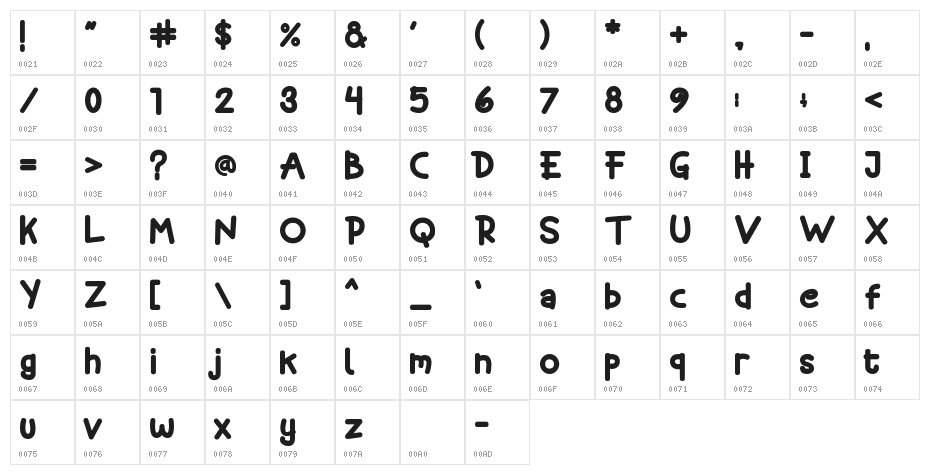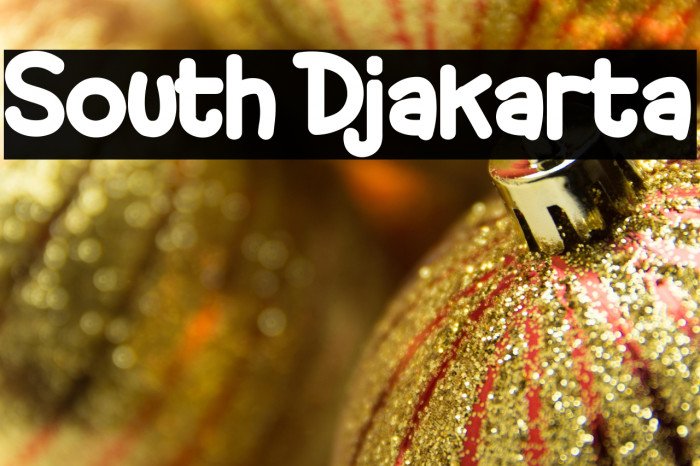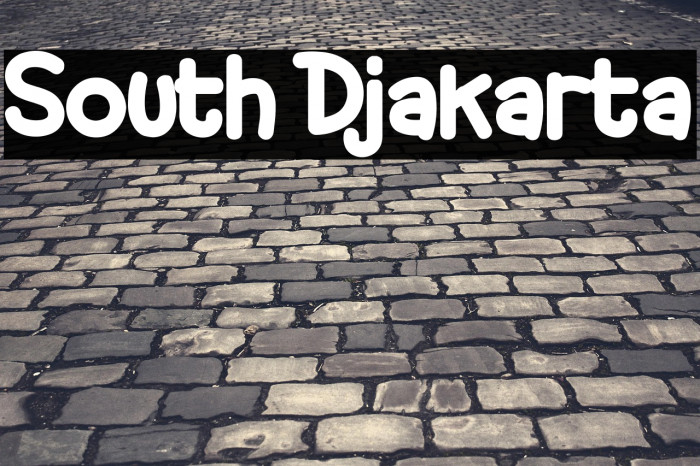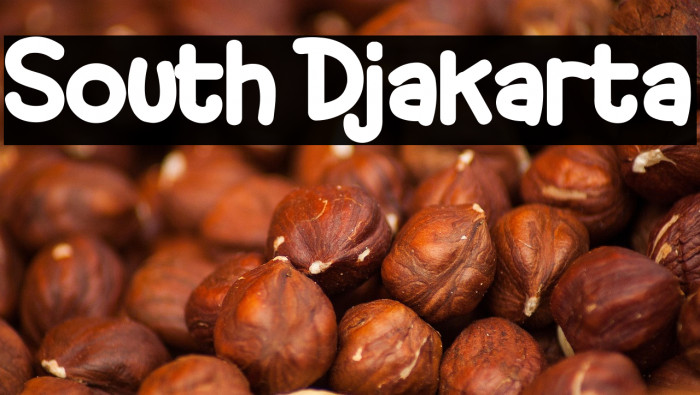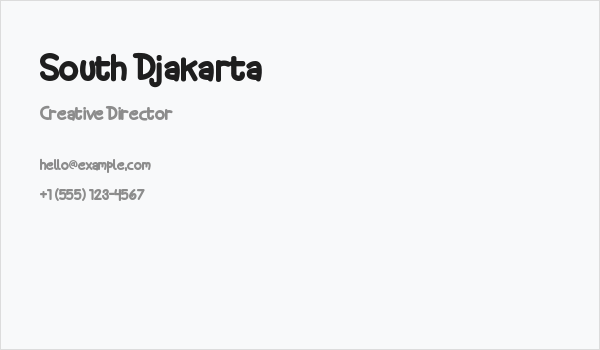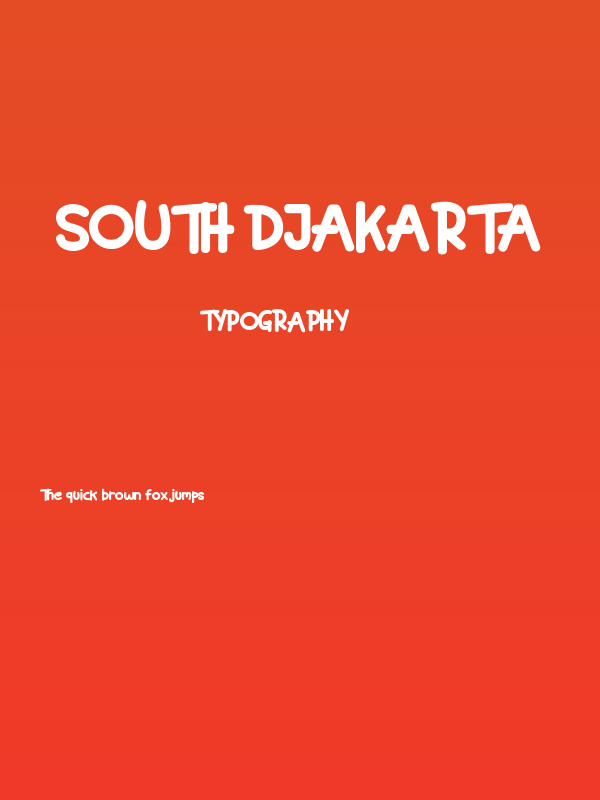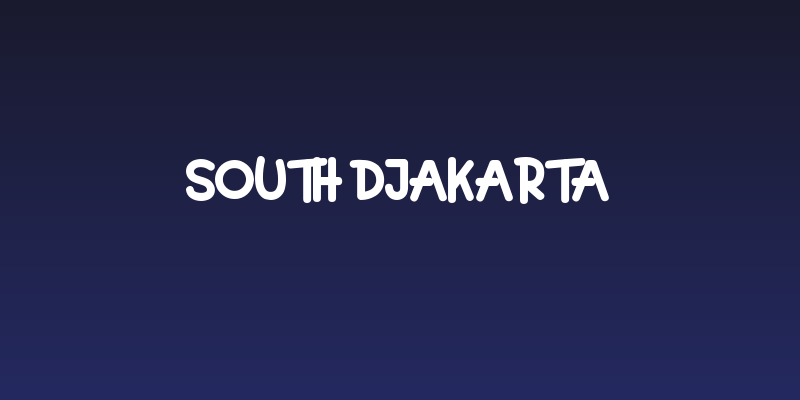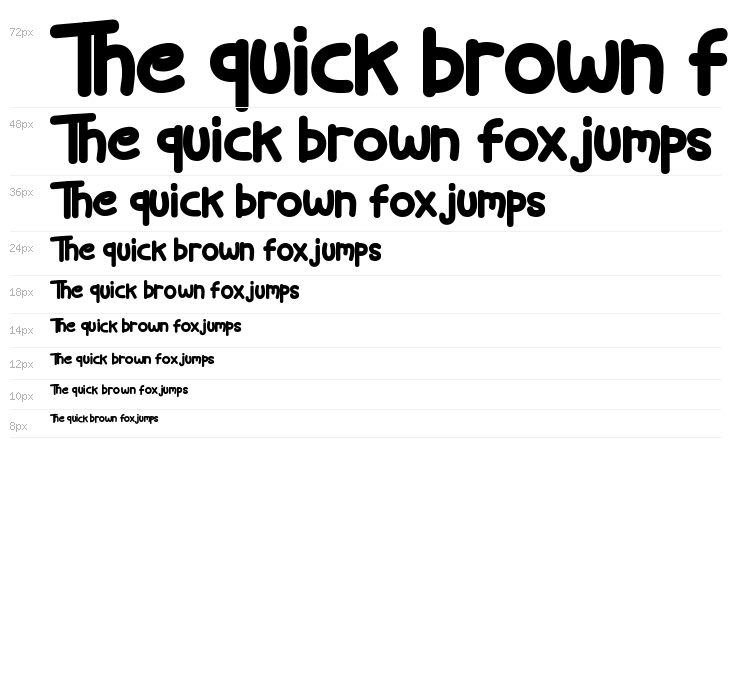
South Djakarta Font
South Djakarta Description
This playful and bold font features a rounded, hand-drawn style that exudes a casual and friendly vibe. The characters are thick and slightly irregular, giving them a whimsical and approachable appearance. The uppercase and lowercase letters maintain a consistent weight, while the numbers and special characters follow the same playful design. The font's overall look is informal and fun, making it ideal for projects that require a touch of personality and creativity.
| Overall Style | Casual and Playful |
| Use Case | Logos, Posters, Invitations |
| Proposed Projects | Ideal for children's books, playful branding, casual invitations, and creative posters. |